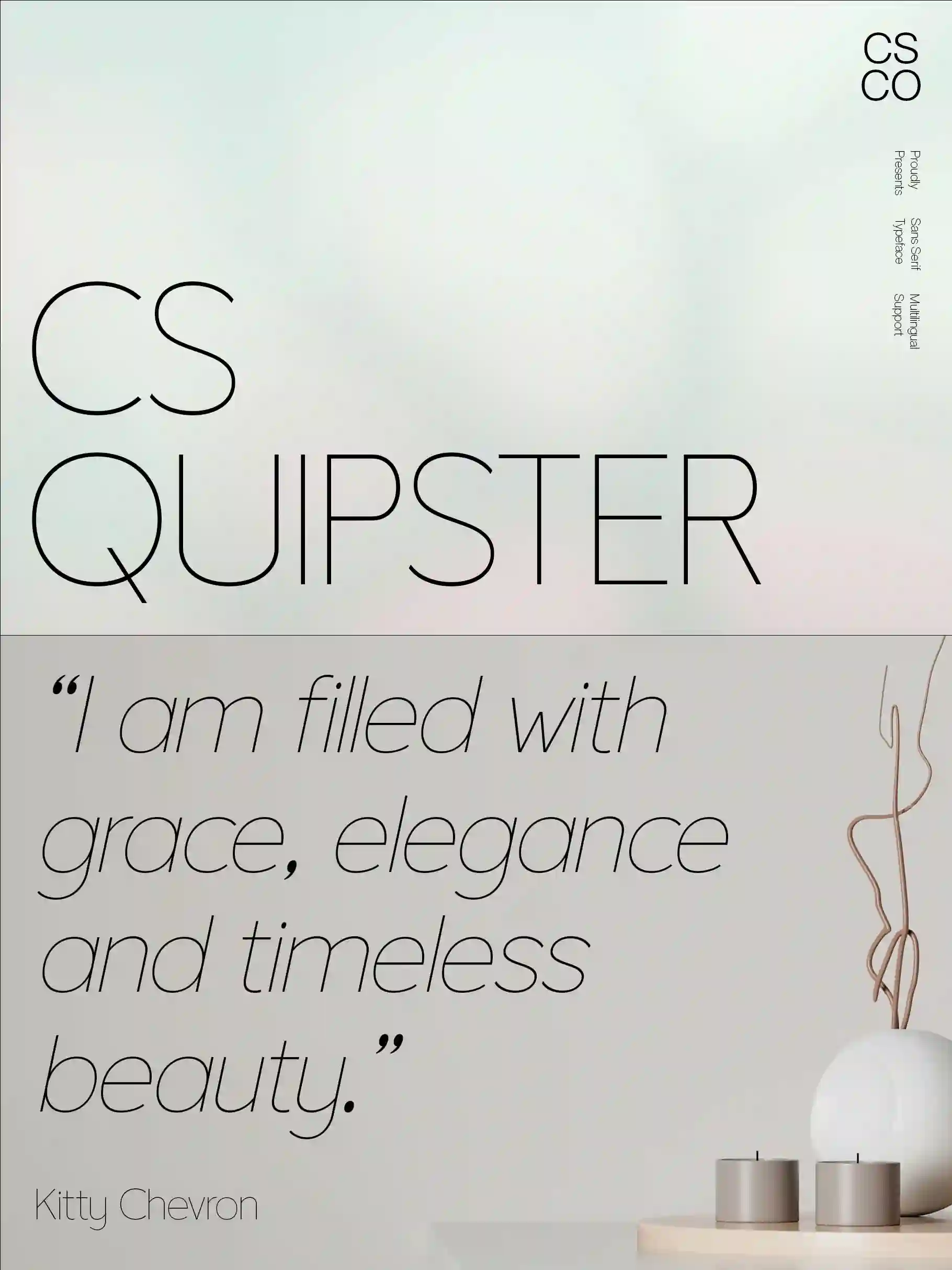
CS Quipster – Thin Geometric Sans Serif with Minimalist Style
Thin Geometric Sans Serif for Elegant Design
Modern Geometry with Professional Clarity
CS Quipster is a geometric sans serif font designed with thin letterforms that emphasize elegance and precision. Its minimalist construction delivers a clean, modern aesthetic, making it ideal for professional projects that demand clarity and sophistication. The geometric structure ensures balance, harmony, and timeless appeal.
Elegant and Minimalist Expression
With its refined thin strokes, CS Quipster conveys a sleek and minimalist personality. It adapts easily to both formal and casual contexts, giving designers flexibility while maintaining a polished look. From high-end branding to everyday communication, this font radiates understated elegance and confidence.